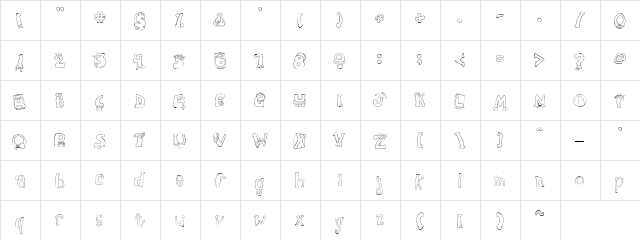
LD Beach Fun Regular
Design Context for LD Beach Fun Typeface
LD Beach Fun has an approachable, lighthearted character — its loose, expressive forms are well-suited to children's content, casual branding, and fun-first design.
Font Pairing: Pairs well with a rounded or humanist sans for body copy, maintaining the friendly tone without relying on LD Beach Fun to carry extended reading.
Pro Tip: Avoid using LD Beach Fun for long passages of text — it works best for headlines, labels, and short calls to action.